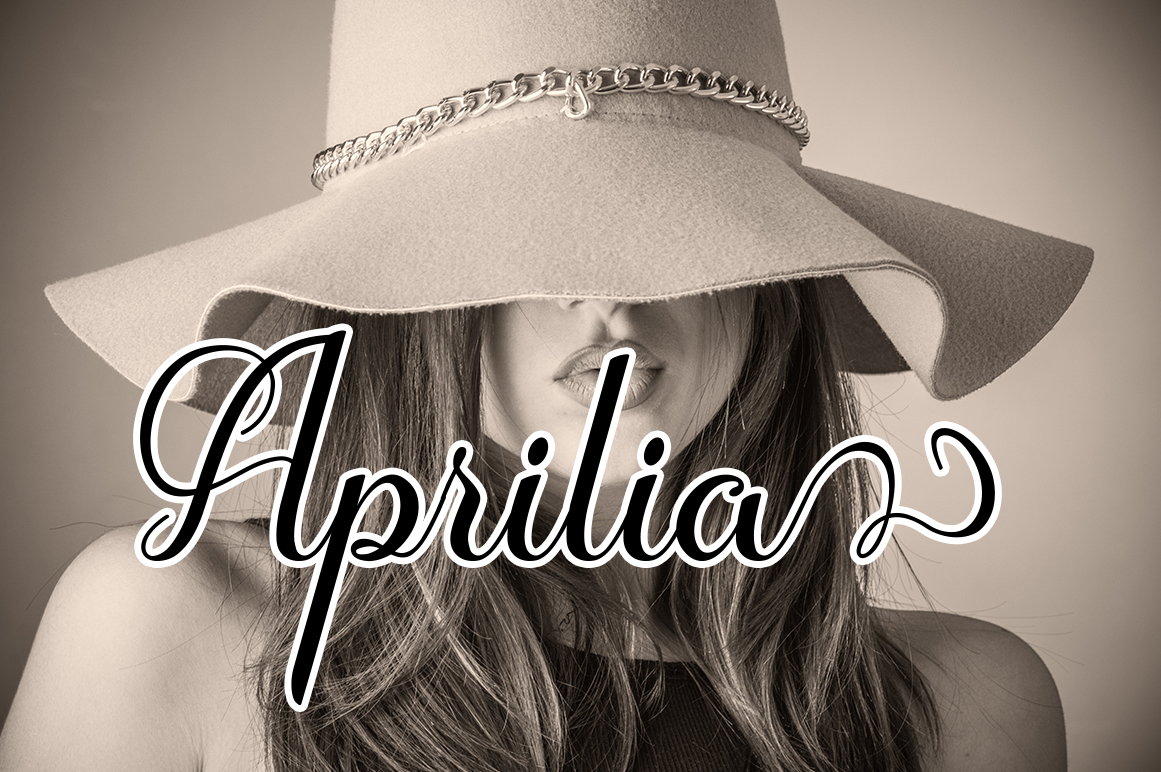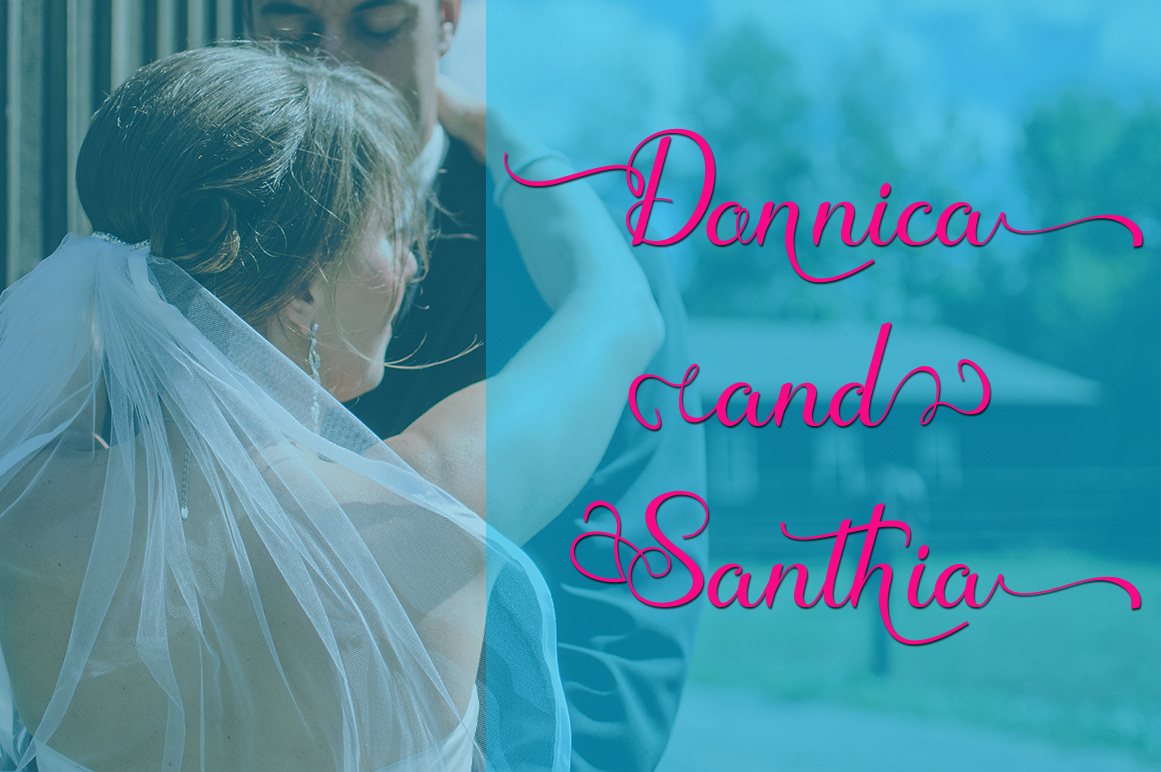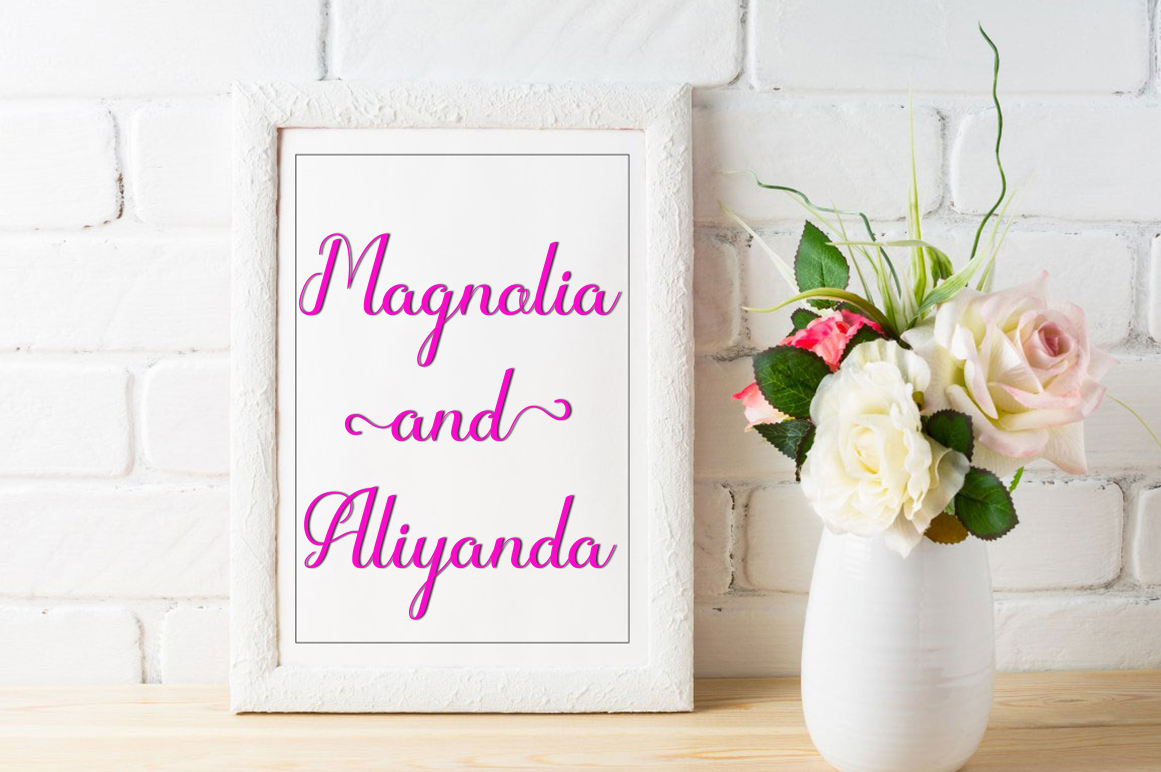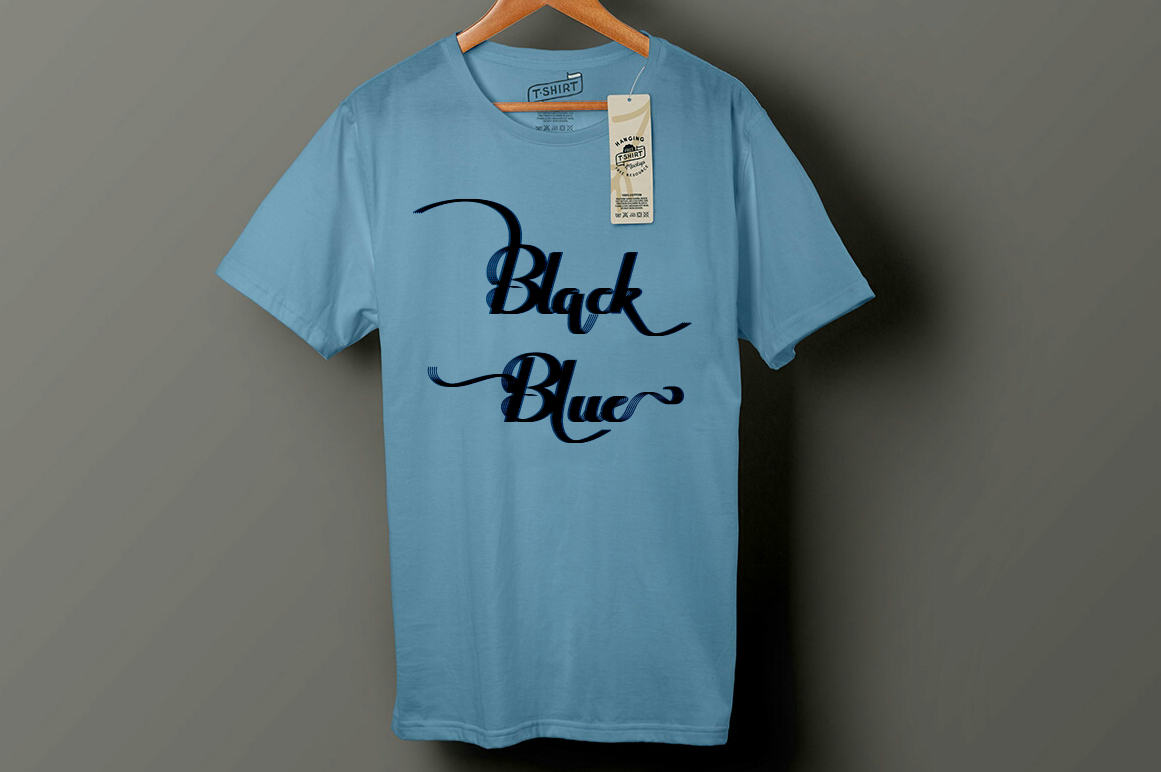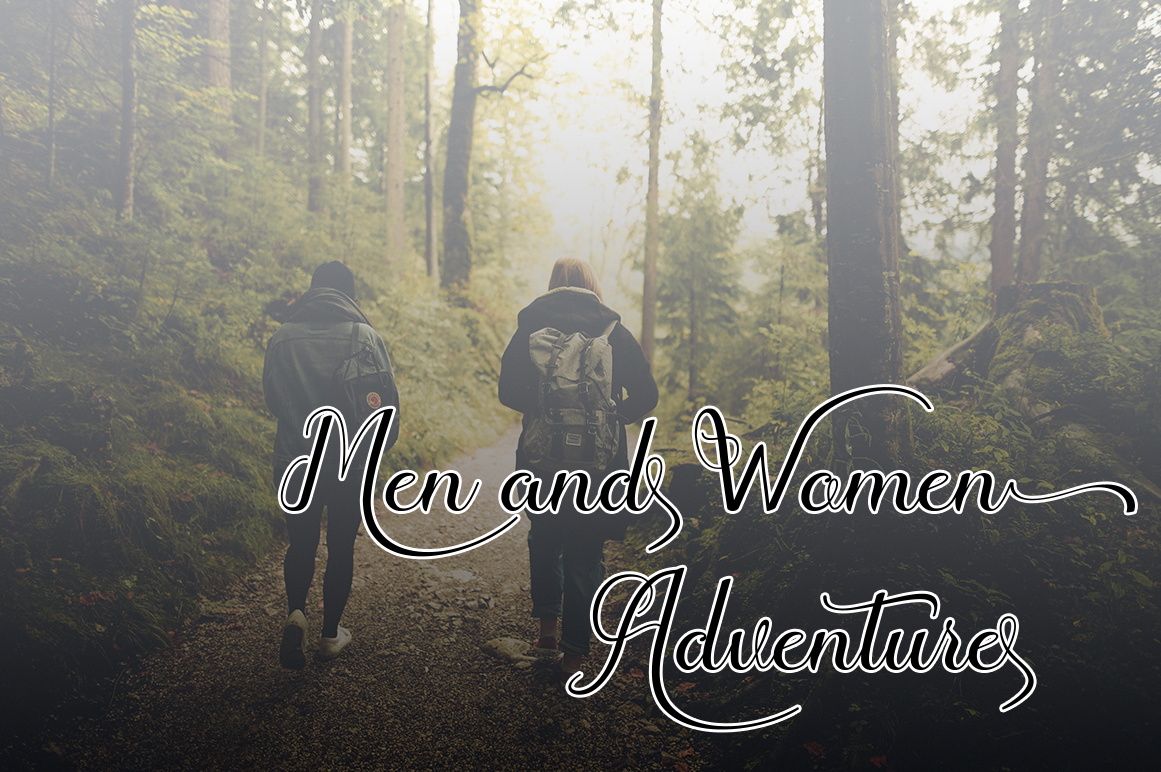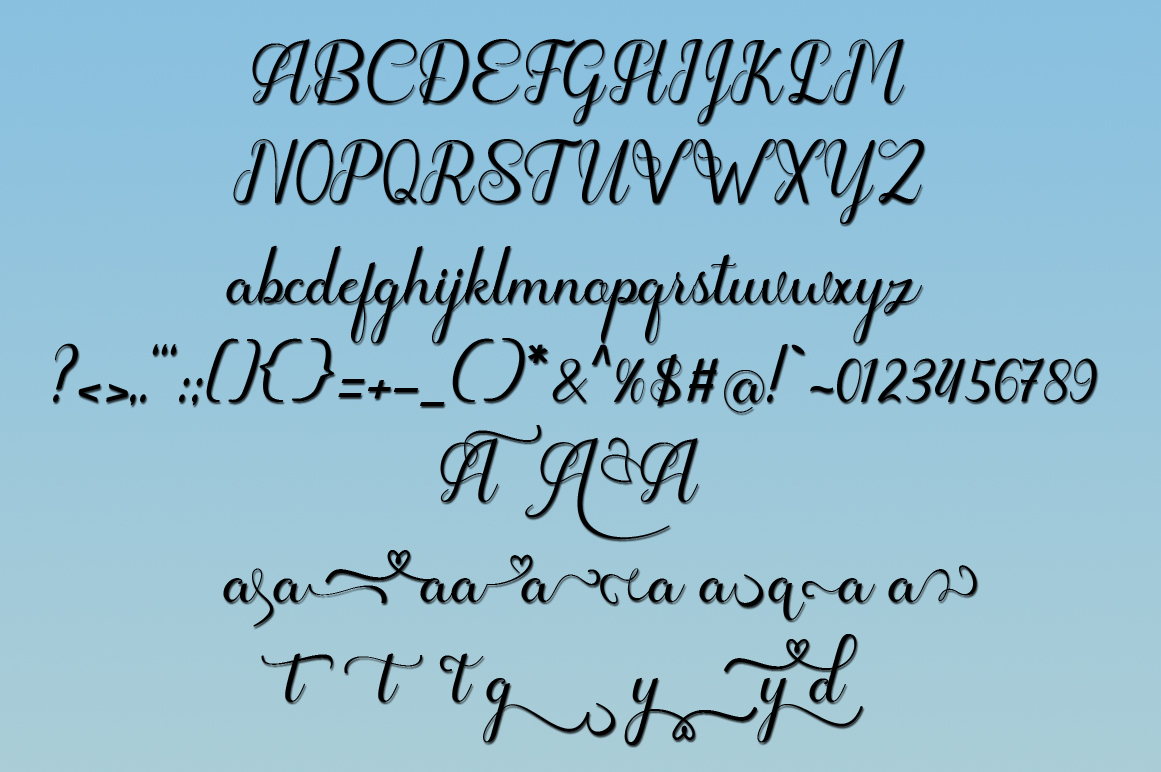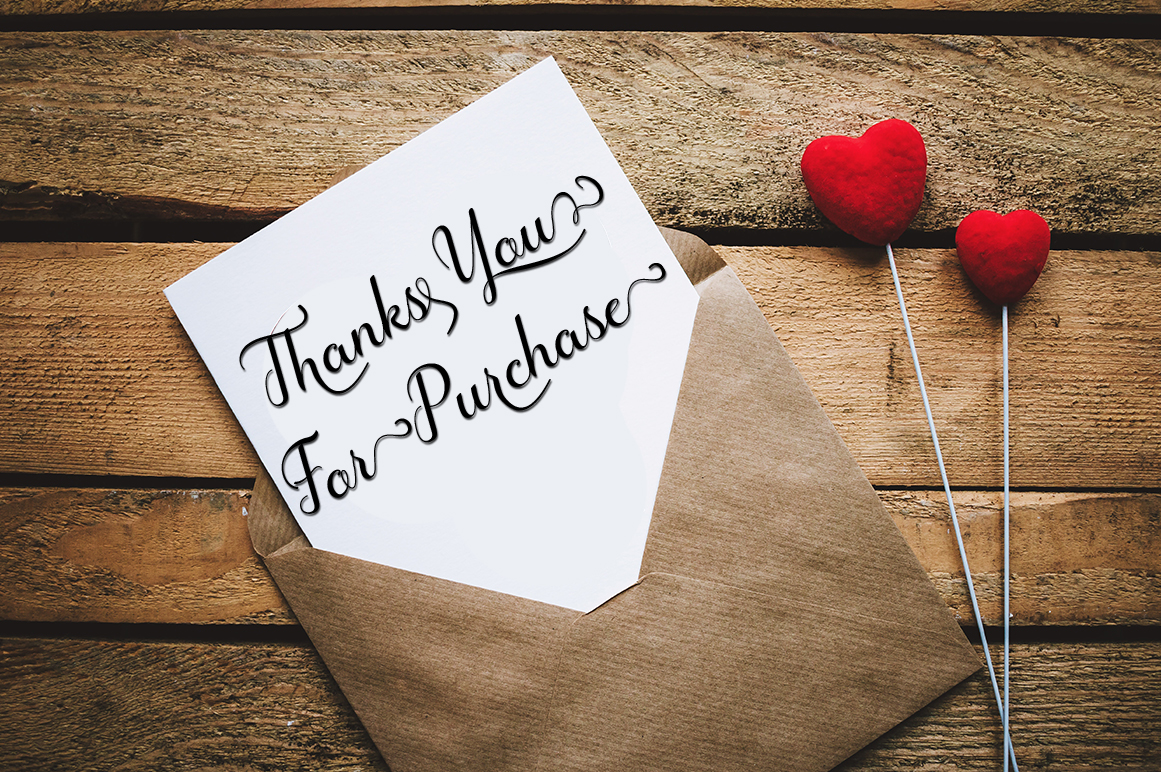
Hipnotis Font
About Hipnotis Font
Hipnotis is a stunning and fresh calligraphy font. With over 570 glyphs, this font is a robust and customizable set that works for special occasion designs and more.